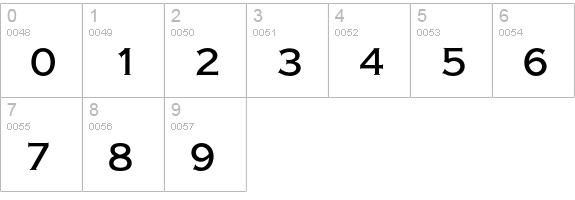
AmericanGothic-Medium Font Details
AmericanGothic-Medium is a balanced, medium-weight variant in the AmericanGothic typeface family \xE2\x80\x94 well suited to sub-headlines, navigation, and balanced editorial work.